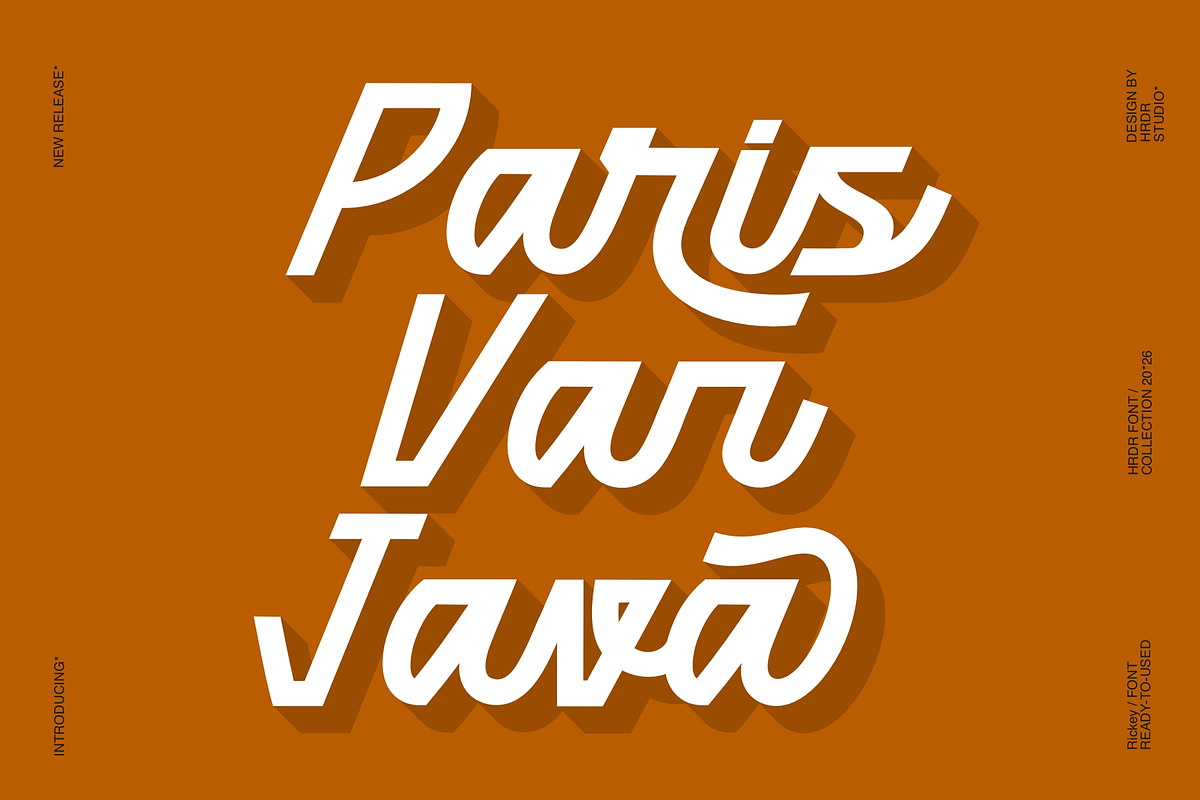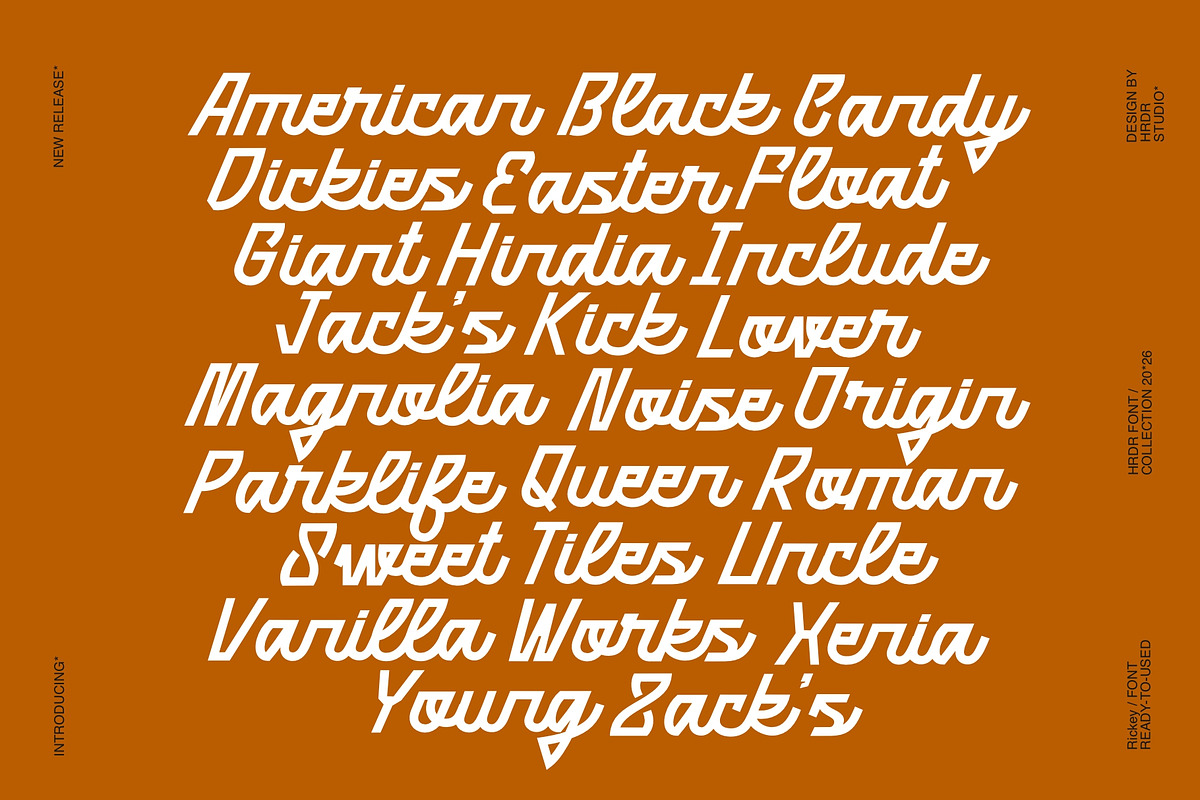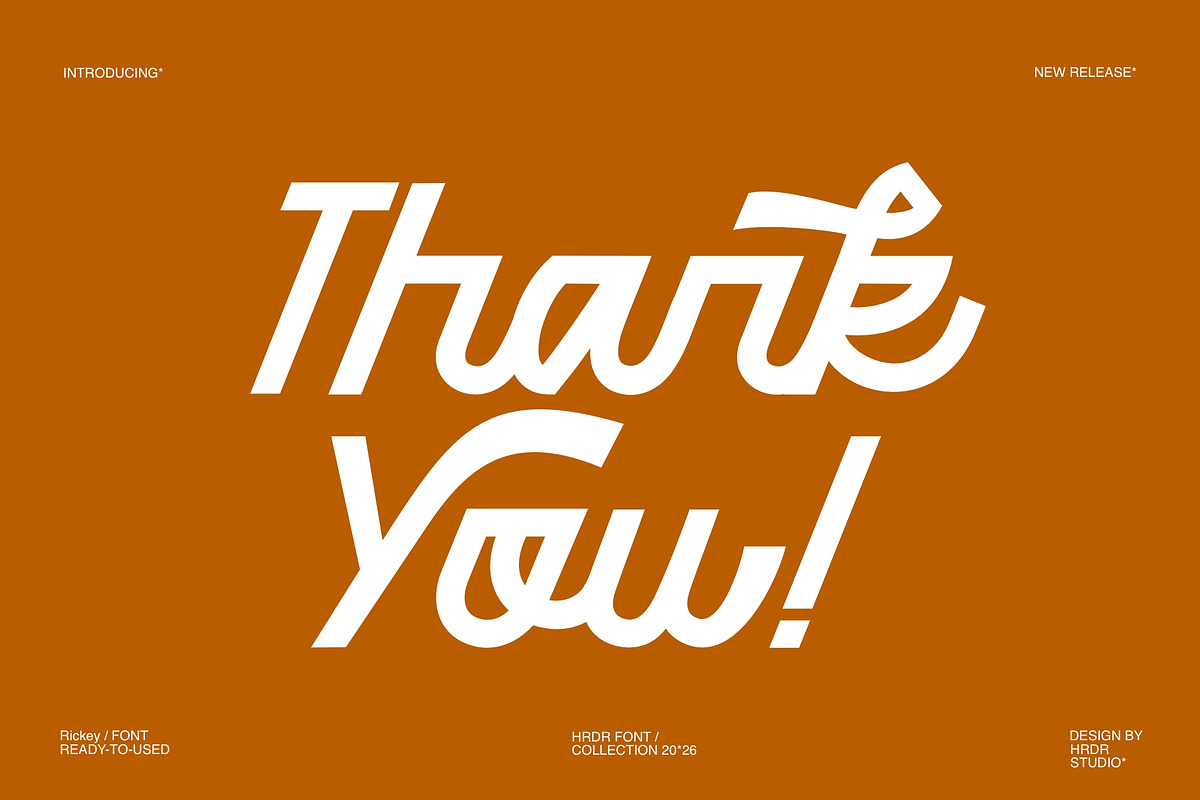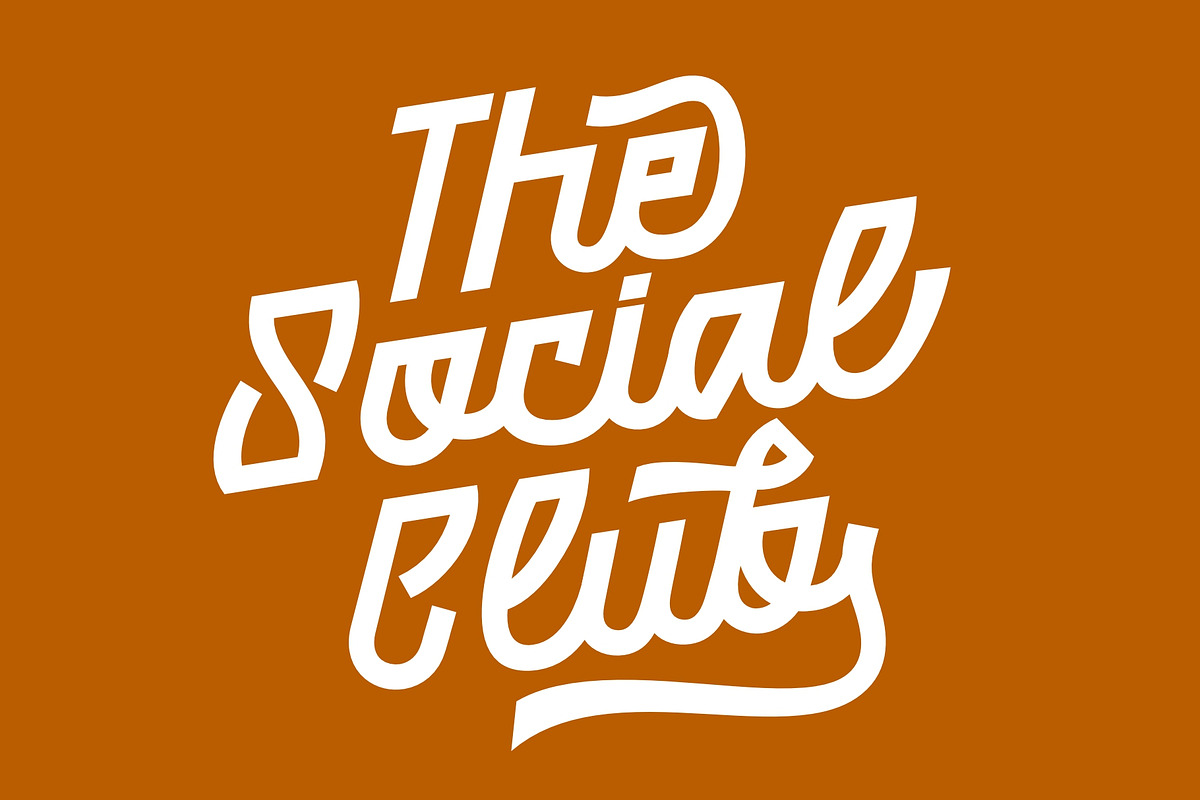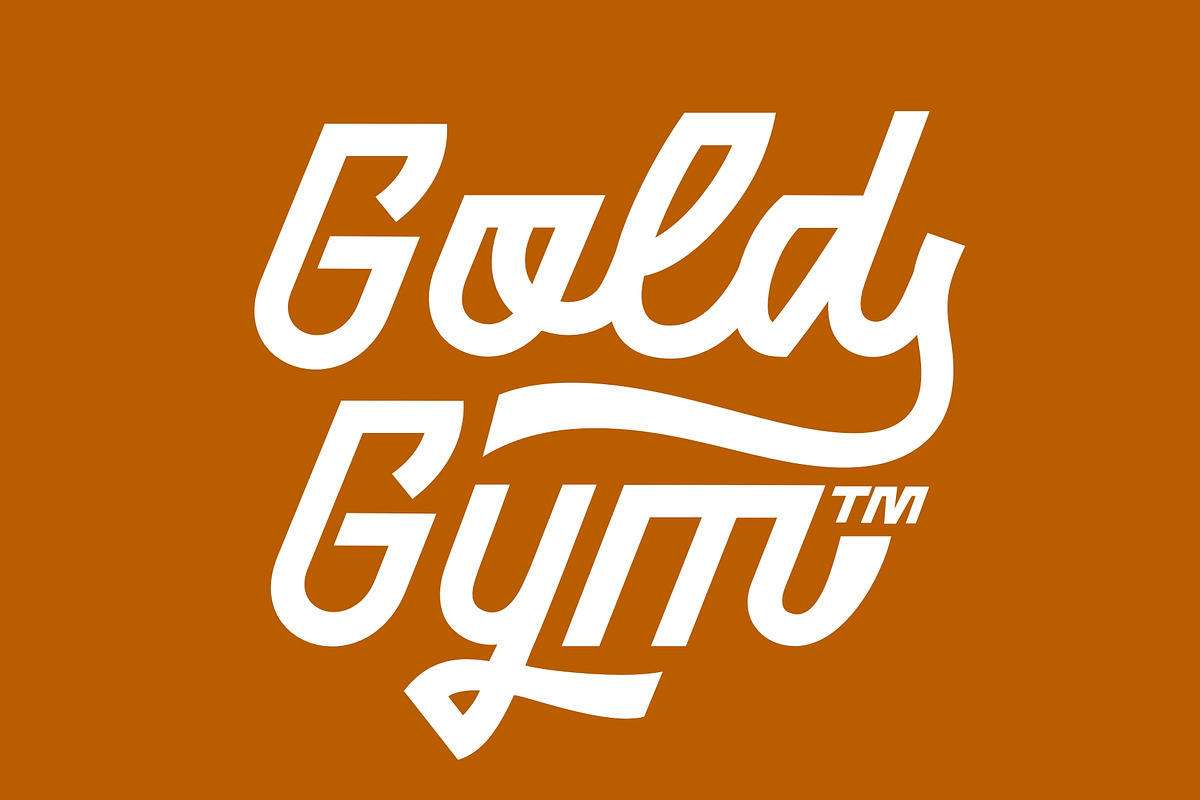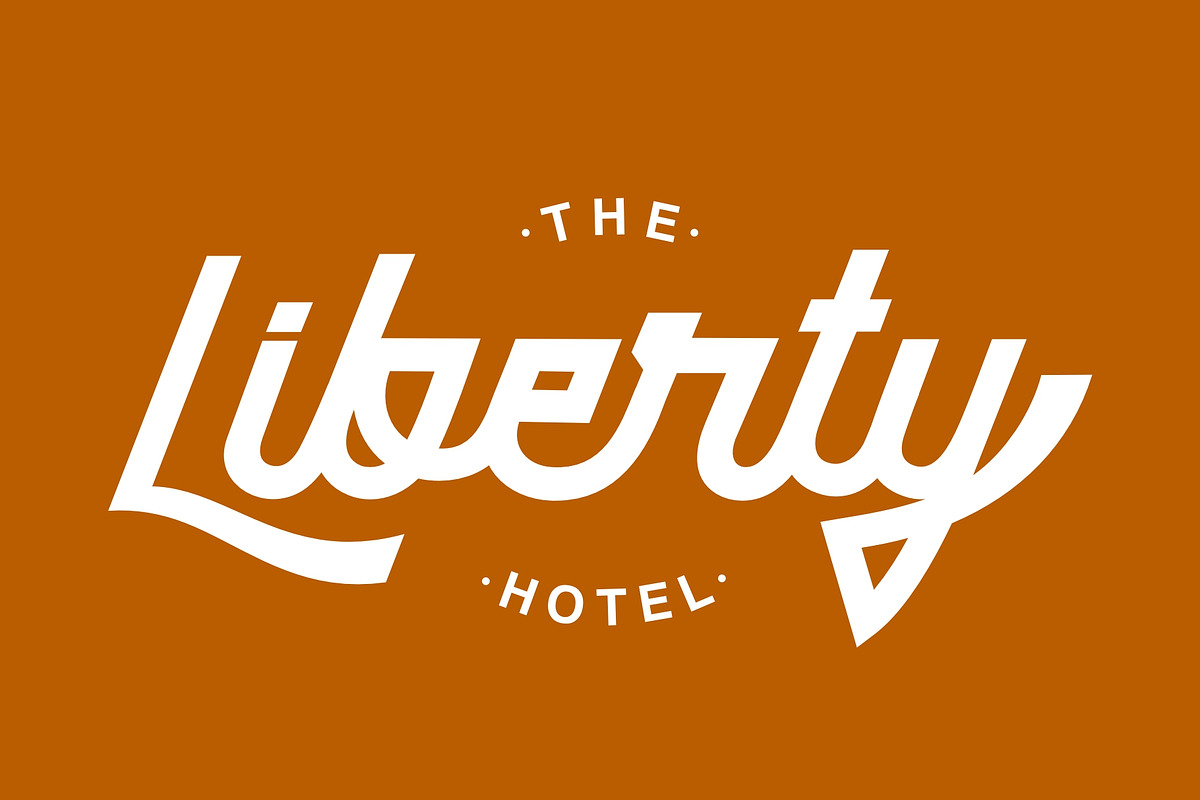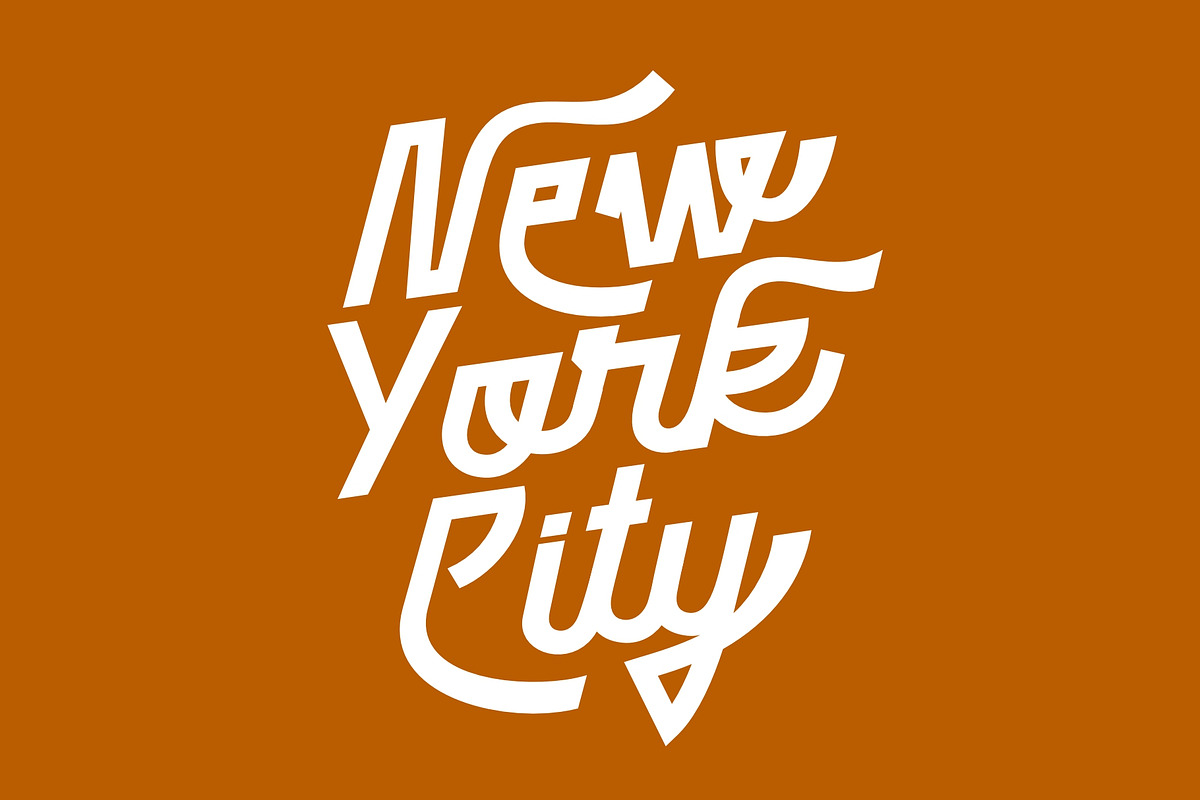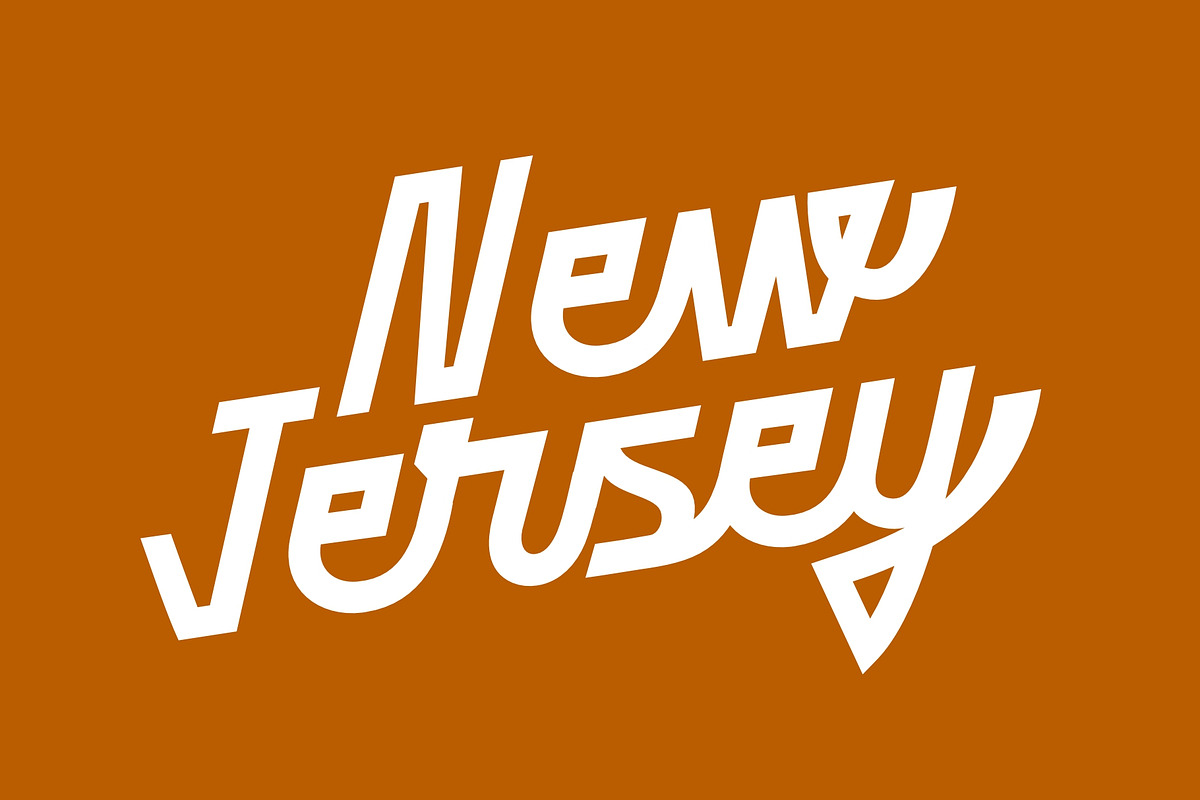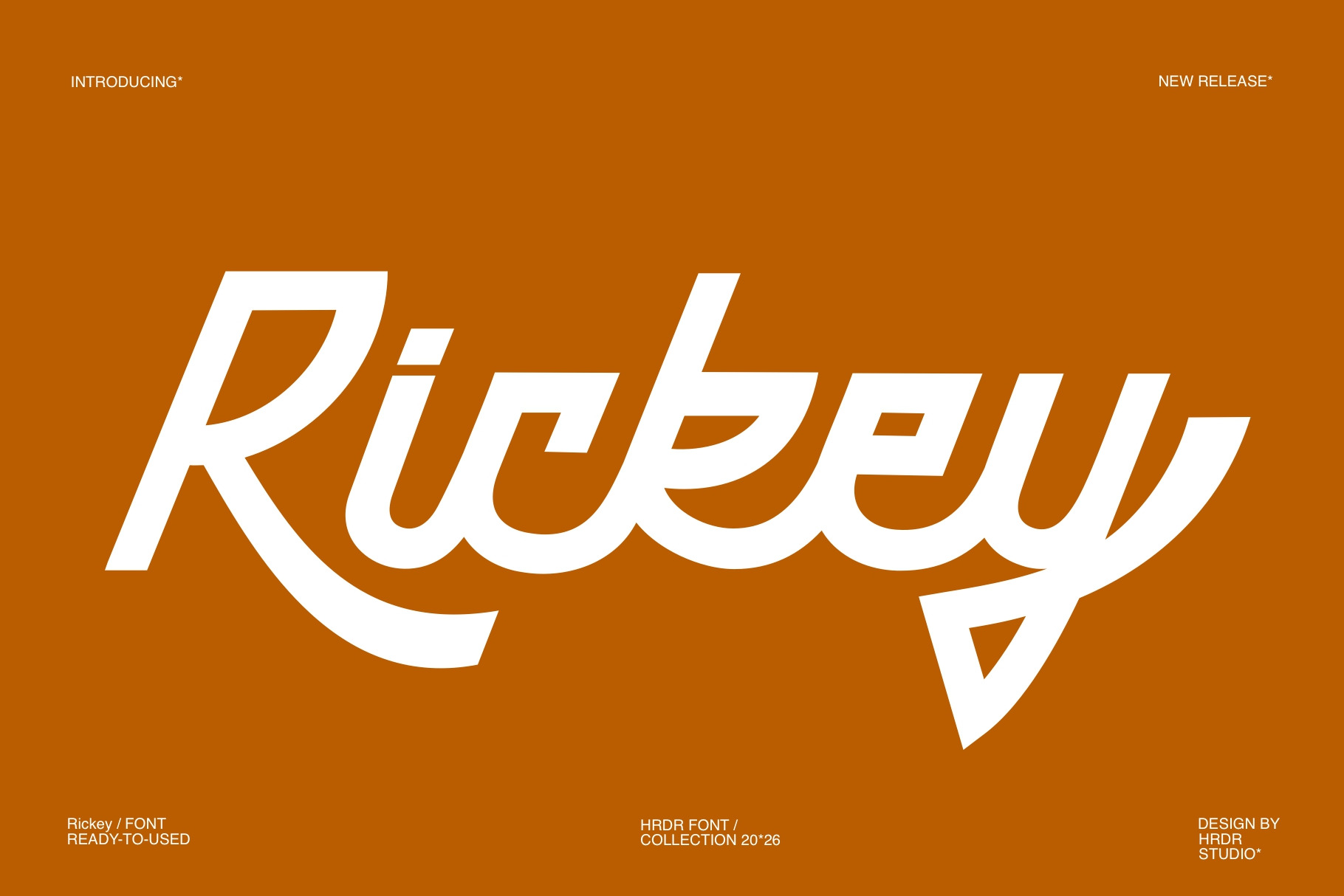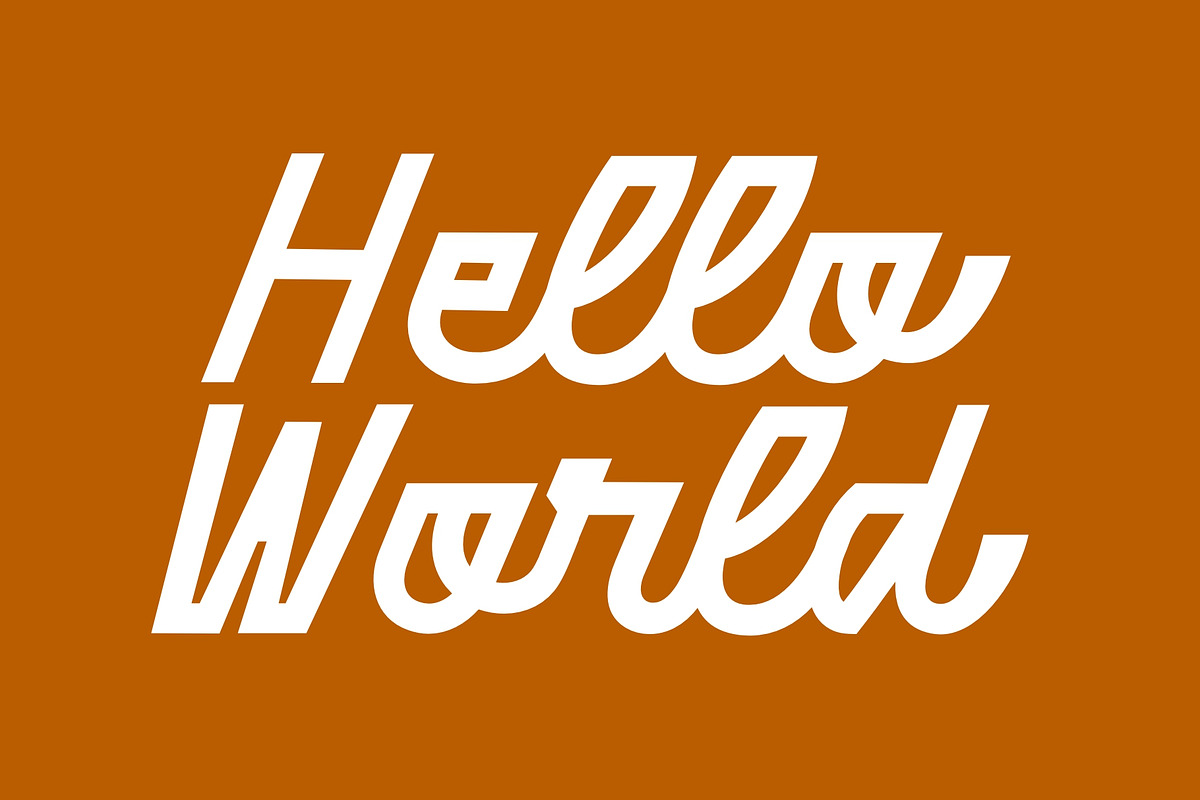
Rickey - Modern Elegant Font
Rickey is a new Modern Elegant Font with Casual style , perfect for crafting, branding, Logo, invitation, stationery, wedding designs, social media posts, advertisements, product packaging, product designs, label, Posters, photography, special events, or anything.
- numeric & Multilingual support
- Stylistic Alternates with Ss01 ,Ss02, Ss03, Ss04, Ss05, Ss06 and Swash